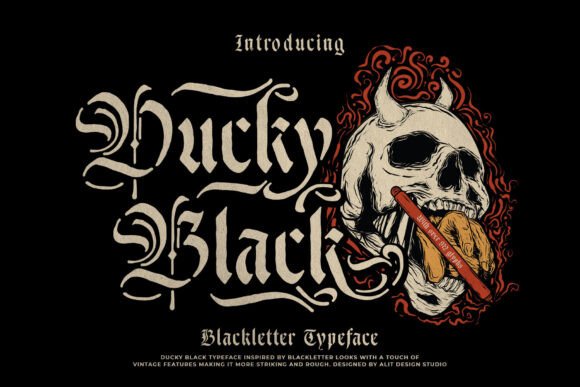
Ducky Black Font: A Vintage Blackletter Stencil Typeface for Bold Designs
In the realm of typography, few typefaces manage to convey the same level of elegance and industrial grit as Ducky Black, a meticulously crafted Blackletter Vintage Stencil Typeface. This font is designed to transport your designs to a world of bold gothic elegance, merging the timeless beauty of traditional blackletter with the practicality of stencil design. Whether you’re an artist, designer, or creative looking to add a historic yet industrial feel to your projects, Ducky Black is the perfect choice.
Key Features of Ducky Black Font
- Sharp Edges and Dramatic Strokes: Ducky Black boasts sharp, defined edges and dramatic strokes that give it a commanding presence. These features make it ideal for designs that require a bold statement.
- Stencil-Inspired Cutouts: The stencil-inspired cutouts add a layer of industrial practicality to the font, making it suitable for a variety of applications, from signage to apparel.
- Blackletter Elegance: The traditional blackletter style lends an air of timeless elegance and historical depth to your designs, perfect for projects that require a vintage or medieval aesthetic.
- Vintage-Themed Designs: Ducky Black is specifically designed to excel in vintage-themed projects, offering a unique blend of historical authenticity and modern usability.
Ideal Use Cases for Ducky Black
Ducky Black’s versatility makes it suitable for a wide range of design projects. Here are some of the ideal use cases for this typeface:
- Branding: Create a lasting impression with a bold, gothic-inspired logo that stands out.
- Tattoos: The unique, stylized lettering of Ducky Black makes it perfect for tattoo designs that require a distinctive look.
- Packaging: Add a touch of industrial elegance to your product packaging with this versatile typeface.
- Posters: Whether you’re advertising an event or promoting a cause, Ducky Black can help your poster stand out.
- Signage: The stencil-inspired design makes it easy to read and visually striking for signage.
- Apparel: From streetwear to bespoke fashion lines, Ducky Black can add a bold, eye-catching element to your designs.
Design Tips for Using Ducky Black
To get the most out of Ducky Black, consider the following design tips:
- Pair with Simple Fonts: Ducky Black’s bold style can be overwhelming. Pair it with simpler fonts for contrast and readability.
- Experiment with Colors: While black is a classic choice, experimenting with other colors can add a modern twist to your designs.
- Pay Attention to Spacing: The stencil cutouts can make the text appear denser. Adjust the spacing to ensure your design doesn’t feel cramped.
- Utilize the Stencil Aspect: Take advantage of the stencil design by incorporating it into your creative process, such as adding texture or patterns.
Typography Tips for Maximum Impact
Effective typography is key to making the most of Ducky Black. Here are some tips to enhance your typographic designs:
- Hierarchy is Key: Use size, weight, and placement to create a visual hierarchy that guides the viewer’s eye.
- Consistency: Maintain consistency in your typography to build a cohesive brand or design identity.
- Legibility: Ensure that your text is legible, especially when using a bold, stylized typeface like Ducky Black.
- Creative Freedom: Don’t be afraid to experiment and push the boundaries of traditional typography rules.
Ducky Black – A Vintage Blackletter Stencil Typeface, offers a unique blend of historical elegance and industrial practicality. Its sharp edges, dramatic strokes, and stencil-inspired cutouts make it a versatile typeface suitable for a wide range of design projects. By understanding its features, use cases, and design tips, you can unlock the full potential of Ducky Black and add a bold, gothic-inspired touch to your typography.